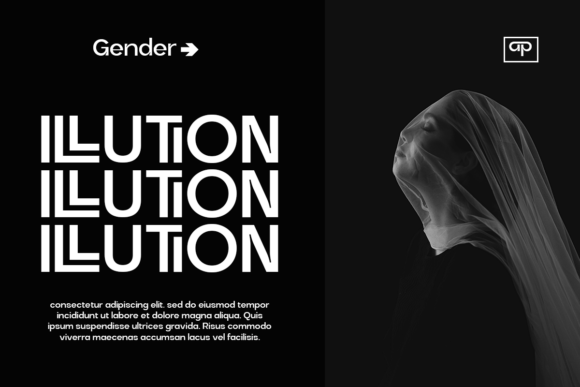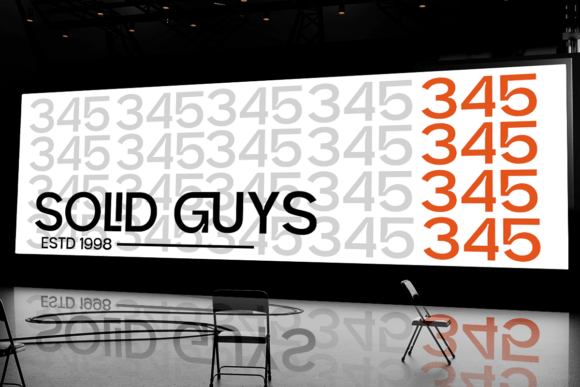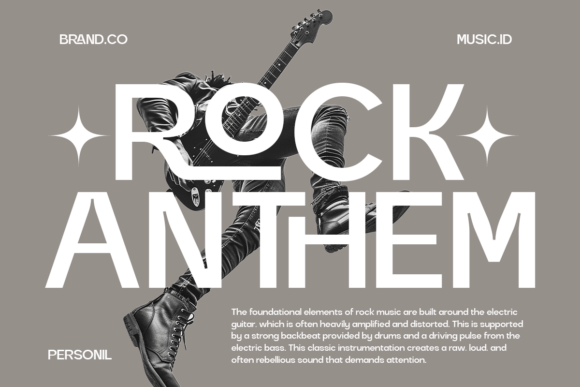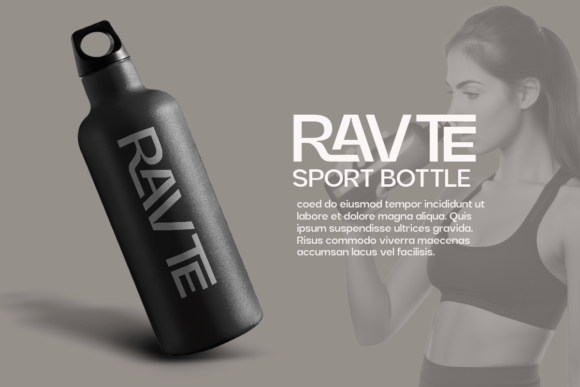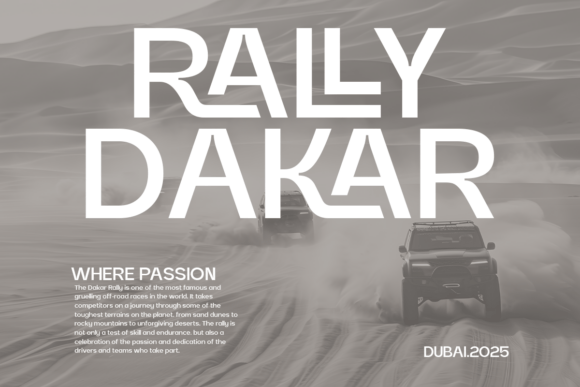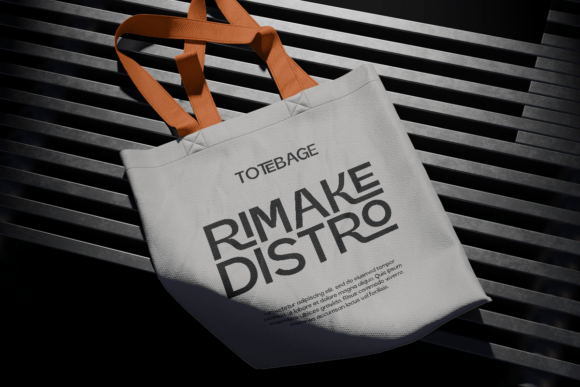
What is Gerathi Font?
Gerathi is a modern Humanist Sans Serif font that strikes a balance between geometric precision and smooth humanist curves. This unique blend makes it perfect for a wide range of design projects, from branding and logos to headlines, posters, and editorial design. With its clean elegance and high readability, Gerathi is an excellent choice for both digital and print projects.
My Honest Review of Gerathi Font
- ✨ Unique letterforms: Gerathi’s distinct letterforms set it apart from other sans-serif fonts, giving it a timeless yet contemporary feel.
- ✅ High readability: The font’s clean lines and smooth curves make it easy to read, even at small sizes.
- 🎨 Versatility: Gerathi is suitable for a wide range of design projects, from futuristic branding to fashion editorials.
- ⚠️ Not suitable for body text: While Gerathi is highly readable, it’s best used for headlines, titles, and short paragraphs.
The Story Behind Gerathi Font
Gerathi was designed with the goal of creating a modern, yet timeless font that combines the best of geometric precision and humanist curves. The designer aimed to create a font that is both elegant and highly readable, making it perfect for a wide range of design projects.
Q: What is the best use for Gerathi Font?
A: Gerathi is ideal for branding, web design, editorial layouts, and product packaging. It’s especially effective in futuristic branding, sci-fi themes, fashion editorials, and minimalist posters.
Q: Is Gerathi Font suitable for body text?
A: While Gerathi is highly readable, it’s best used for headlines, titles, and short paragraphs. For longer body text, consider a serif font or a dedicated body text font.